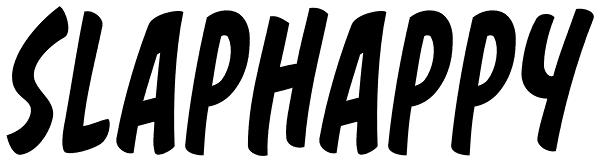
Slaphappy
Are you feeling a little dazed, silly, or light-headed? Are you talking incoherently as if you've received repeated blows to the head? Would you perhaps describe yourself as punch-drunk? Happy-go-lucky? Have you recently been sleep deprived or are...
Slaphappy Open
Slaphappy Dropcaps
Slaphappy